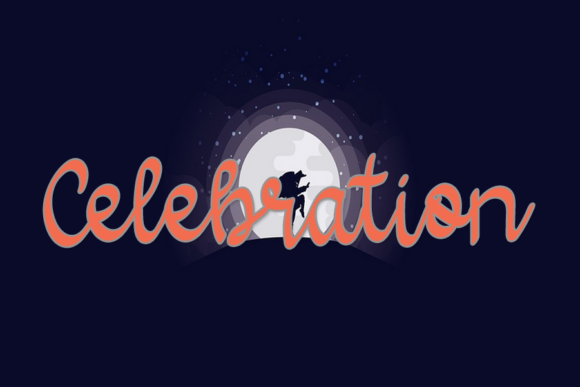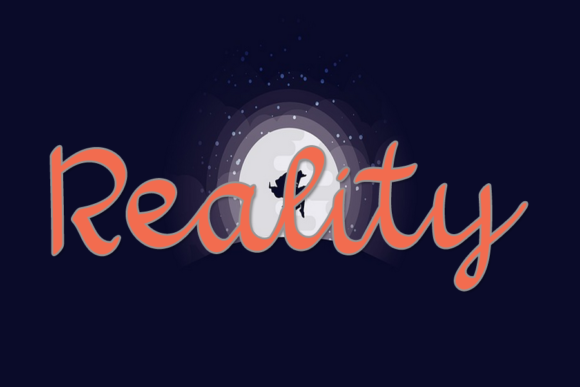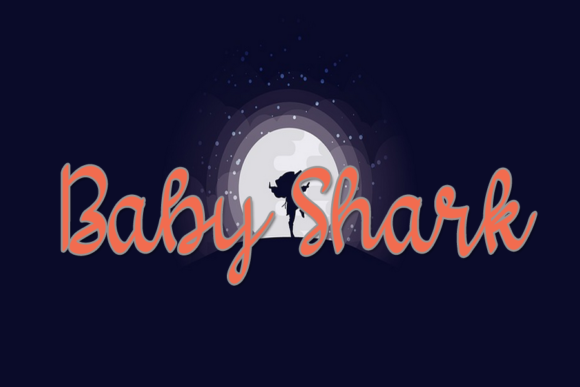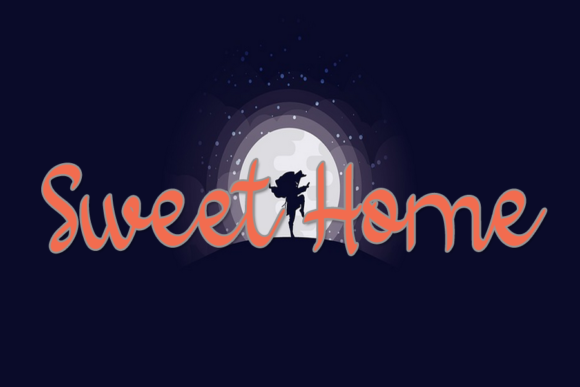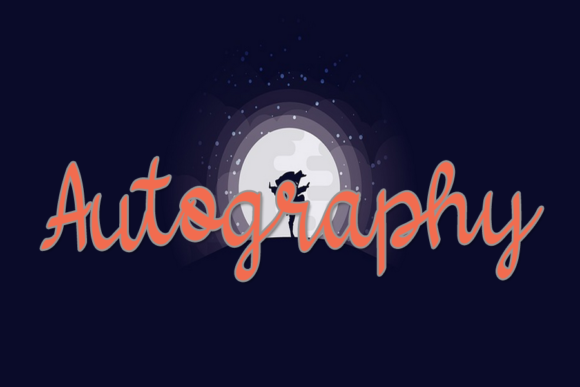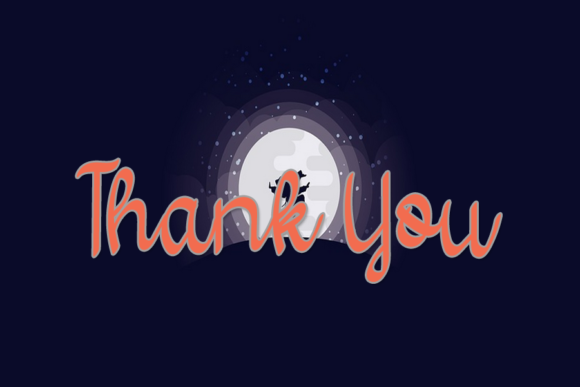
The Perfect Font for Your Next Design Project
Have you ever sat in front of a blank page, staring at your computer screen, trying to conjure up the perfect font to bring your design to life? You know, that one magical combination of curves and lines that will transport your audience to a world of romance and elegance? That’s exactly what I experienced when I first discovered the Balikids Font.
As a calligraphy typeface, Balikids is designed to add a touch of luxury and sophistication to any design project. Its unique, flowing characters dance along the baseline, creating a sense of movement and fluidity that’s simply captivating. Whether you’re creating a wedding invitation, a luxury brand logo, or a romantic greeting card, the Balikids Font is the perfect choice to add a touch of whimsy and charm.
As a designer, you know how much a great font can elevate your work. And with the Balikids Font, you’ll be able to create designs that are truly one-of-a-kind. So why settle for a generic font when you can add a touch of personality and flair to your work with the Balikids Font?
Key Features of Balikids Font
- Unique Characteristics: The Balikids Font features a playful, childlike design with rounded edges and whimsical details, making it perfect for children’s books, educational materials, and other kid-friendly content.
Design Review: Balikids Font
Overall, I’d say the Balikids Font has some lovely aspects, but it also has some areas where it falls short.
- The Balikids Font is playful and fun, perfect for kids’ content or branding.
- The font’s use of rounded edges and gentle curves creates a friendly and approachable feel.
- The Balikids Font is highly legible, making it easy to read even at smaller font sizes.
- The font’s design may be too childish for some brands or applications, limiting its versatility.
- The Balikids Font lacks the sophistication and elegance that some designers may be looking for.
- The font’s character set is not extensive, which may limit its use in more complex design projects.
Overall, the Balikids Font is a great choice for brands or designers looking for a fun, playful font for kids’ content or educational materials. However, it may not be the best fit for more formal or professional applications.
Tips for Getting the Most Out of Balikids Font
For best results, use Balikids Font in conjunction with a clean and simple design.
Use Balikids Font for headings and titles to create a cohesive look.
Use Balikids Font for:
Children’s books and educational materials.
Infographic designs and visual aids.
Brand logos and identity designs.
Alternatives to Balikids Font for Designers
Great Vibes is a modern, cursive font ideal for creating a friendly and approachable atmosphere. It is perfect for use in headings, titles, and short paragraphs where a touch of elegance is required.
Compared to Balikids Font, Great Vibes has a more fluid and organic feel, making it suitable for designs that require a softer, more whimsical touch. While Balikids Font is more geometric and structured, Great Vibes is more free-flowing and expressive.
Alex Brush is a beautiful, handwritten font that works well for designs that require a personal and creative touch. It is ideal for use in headings, titles, and short paragraphs where a unique, handwritten feel is desired.